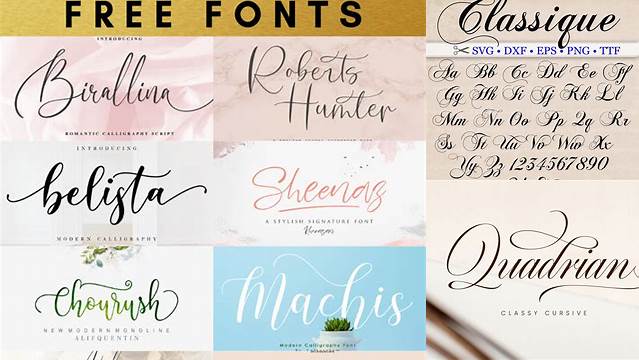
Explore Stunning Cursive Fonts For Elegant Writing
Hey guys! Ever admired the graceful loops and swirls of beautiful cursive writing fonts? They have a certain charm, right? It’s like the words are dancing across the page. Whether you're looking to add a touch of elegance to your wedding invitations, create a unique logo, or simply want to jazz up your personal notes, the right cursive font can make all the difference. In this article, we'll dive deep into the world of these fonts, exploring their history, styles, and how to choose the perfect one for your needs. Get ready to be inspired and maybe even discover your new favorite font!
The Allure of Cursive Fonts: Why We Love Them
Alright, let's be honest, beautiful cursive writing fonts have a special place in our hearts. They're more than just letters; they're an art form! Their appeal is multifaceted. First off, cursive fonts evoke a sense of sophistication and tradition. Think about those old-school love letters or elegant certificates – the flowing script instantly lends an air of prestige. It's like adding a touch of class to whatever you're creating. Secondly, cursive fonts are incredibly versatile. They can be used for everything from formal invitations and branding to personal journaling and artistic projects. This versatility makes them a go-to choice for designers, writers, and anyone who wants to make a statement. Furthermore, cursive fonts often have a personal touch. Each font has its own unique personality, with variations in slant, thickness, and flourishes. This individuality allows you to express your creativity and make your work stand out. There's a certain intimacy to cursive; it feels more personal, more handmade. You can almost feel the pen gliding across the page. This is particularly useful when you want to make a connection with your audience. Cursive fonts give a sense of authenticity that digital fonts often lack. The feeling of handwriting has the power to charm, adding personality and charm to a message. They're like a secret language that gives a human touch to any message. So, whether you're a creative professional or just someone who appreciates beautiful design, cursive fonts offer a world of possibilities.
A Brief History: From Ancient Scripts to Digital Designs
Let’s rewind the clock a bit, shall we? The history of beautiful cursive writing fonts is super interesting. It all started way back when. The earliest forms of cursive writing can be traced back to ancient civilizations, where scribes used quicker, more fluid strokes to write. The goal was to speed up the process of writing, which meant connecting the letters and creating a continuous flow. Over time, these scripts evolved, influenced by different cultures and artistic movements. The Romans, for example, developed a cursive script known as Roman cursive, which was used for everyday writing. This style was all about speed and efficiency, perfect for the busy lives of the Romans. During the Middle Ages, different styles of cursive emerged. The Carolingian minuscule was a significant development, as it provided a more standardized and legible form of writing. It paved the way for more elegant and artistic cursive styles. With the invention of the printing press, cursive fonts took a backseat for a while. But they never truly disappeared. The elegance of cursive meant that it remained the choice for formal documents, invitations, and artistic expression. The 18th and 19th centuries saw a resurgence of interest in elegant calligraphy. Copperplate script, with its delicate hairlines and bold strokes, became popular for its ornamental appeal. It's a timeless classic for formal things, such as wedding invitations and certificates. Today, the digital age has brought a new wave of cursive fonts. Designers have created countless variations, from classic scripts to modern interpretations. This means we have a wide range to choose from, offering something for everyone. So, next time you're admiring a beautiful cursive font, remember that it's part of a rich history of creativity and craftsmanship.
Types of Cursive Fonts: Exploring Different Styles
Okay, let’s break down the different types of beautiful cursive writing fonts. There's a whole world of styles out there, each with its own unique character. First up, we have Formal scripts. These fonts are all about elegance and sophistication. They often feature elaborate flourishes, and they're perfect for invitations, certificates, and anything that needs a touch of class. The fonts look as if they were made with calligraphy, and they really have a handmade feel. Then we have Casual scripts. These fonts are a bit more relaxed and friendly. They're less formal, with a more personal touch. Casual scripts work great for logos, personal branding, and informal notes. They often mimic handwriting, so they can make your message feel approachable and fun. Brush scripts are another cool category. These fonts mimic the look of a paintbrush or marker. They're bold, dynamic, and perfect for adding a touch of artistic flair. They're especially effective for titles, headlines, and any design that needs a burst of creativity. Modern scripts take a more contemporary approach. They often feature clean lines, geometric shapes, and a minimalist aesthetic. These fonts are perfect for modern designs and branding that demands a modern feel. Finally, there are Handwritten scripts, which are designed to look like actual handwriting. They can vary widely, from neat and tidy styles to more expressive and free-flowing ones. Handwritten scripts work great for personal projects, creating a sense of authenticity and warmth. Each type of cursive font brings a different vibe to the table. Knowing the differences will help you choose the best one for your specific project.
Choosing the Right Cursive Font: Key Considerations
Choosing the right beautiful cursive writing fonts can be tricky. But don’t worry, I got you! First, consider the overall tone of your project. Are you aiming for elegance and formality, or a more casual and friendly feel? The answer will guide you toward the most suitable style. Secondly, think about readability. Some cursive fonts are more challenging to read than others, especially in smaller sizes. Ensure your chosen font is easy to read, because the point is to communicate effectively. Another consideration is the context of use. For example, a formal script might be perfect for a wedding invitation, but it may feel out of place for a website's body text. Also, consider the length of the text. Elaborate scripts can be used in short bursts, but longer paragraphs can be hard to read. The perfect fonts are those with a balance of form and function. Experimenting with different fonts is super important. Try out a few options and see how they look in your layout. Testing the font in its context is essential. Check how it looks against the background and how it interacts with other design elements. Finally, consider licensing. Some fonts are free, while others require a license for commercial use. Be sure to check the license terms. Taking these considerations into account will help you make the right choice and make sure your project looks fantastic!
Readability Tips for Cursive Fonts
One of the most important things to consider when selecting a beautiful cursive writing font is readability. After all, what good is a beautiful font if nobody can read it? There are several things to keep in mind. First, choose fonts with a good balance of thickness and spacing. Letters that are too thin or too crowded will be difficult to read, especially at smaller sizes. Select fonts that are legible for the use you want it to be used for. Make sure to test the font in the size you intend to use it. Secondly, pay attention to the x-height of the font. The x-height refers to the height of the lowercase letter 'x'. Fonts with a larger x-height tend to be more readable. These fonts will allow the words to jump off the page. Consider the contrast between the font and the background. Make sure the font color has a good contrast with the background color. Black text on a white background is a safe bet, but make sure whatever you do is readable. Test the font at different sizes to ensure it remains readable. If you are unsure, you can try setting a sample text in the font and printing it out. This will allow you to evaluate it in a real-world setting. By taking these steps, you will select a readable and functional font.
Pairing Cursive Fonts with Other Fonts
Pairing beautiful cursive writing fonts with other fonts can be a fun challenge. It’s all about creating a harmonious look. First, think about contrast. Combining a cursive font with a sans-serif font can create a nice balance. A sans-serif font is usually used in the headings, with the cursive font used for body text. Secondly, consider the personality of the fonts. A formal cursive font might pair well with a clean and modern sans-serif, while a more casual cursive might work with a slightly more playful sans-serif. Choosing fonts of the same family, but in different styles, can work well. They will have similar letterforms and styles. Try a bold weight for the heading and a light weight for the body text. You will be creating a sense of visual unity. Test the pairing. Setting your text in the different fonts allows you to see what works and what doesn’t. Consider the context. Be mindful of where you will be using the fonts. The pairing that works well for a website may not be right for a printed document. Practice, experimentation, and a good eye will get you there.
Free vs. Paid Cursive Fonts: What's the Difference?
When you're on the hunt for beautiful cursive writing fonts, you'll come across two main categories: free and paid fonts. Understanding the difference can help you make the best choice for your needs. Free fonts are usually available for personal use, and some can be used commercially, but they usually have certain limitations. Paid fonts often come with more features and greater flexibility. They typically have extensive character sets, including a wider range of glyphs, ligatures, and alternative characters. Paid fonts are often designed by professional typographers and are of a higher quality. They may come with more variations, like different weights and styles, making them more versatile. The main advantage of free fonts is the cost. They are a great way to get started without spending money. However, you should be mindful of the licensing terms. You will also have to check the license terms. Some free fonts may require attribution, while others may have limitations on commercial use. Paid fonts offer several benefits, including more extensive features, high quality, and greater flexibility. They provide better value for money, especially for commercial projects. Consider your specific needs. If you need a font for a professional project or a long-term project, a paid font is likely the better option. However, if you are experimenting, free fonts are still a great starting point. Always double-check the license terms, whether it's free or paid. It is very important. It will prevent you from running into legal troubles.
Websites and Resources for Finding Cursive Fonts
Now that you know all about beautiful cursive writing fonts, where do you find them? Luckily, there are plenty of websites and resources dedicated to fonts. Google Fonts is one of the most popular resources for free fonts. It offers a vast selection of fonts, including many elegant cursive styles. The fonts are open-source, so they can be used for personal and commercial projects. Another great option is Font Squirrel. It also offers a wide range of free fonts, and it's known for its high-quality selection. Their library is hand-picked, ensuring a good selection. Then there’s DaFont. This site has a wide variety of fonts, including numerous cursive options. You should be cautious because it's a community-driven site, so make sure to check the license terms. For paid fonts, consider MyFonts. This is a huge marketplace that features fonts from many different designers. It's a great place to find high-quality options, including an abundance of cursive fonts. Another option is Creative Market. This site has a large selection of fonts and other design assets, with both free and paid options. Be sure to compare prices and read the license terms carefully before making a purchase. Remember to always check the license terms before downloading and using any font. This will make sure you are using the font in compliance with its usage guidelines.
Conclusion: Embracing the Elegance of Cursive Fonts
Alright, guys, we've covered a lot of ground today! We've journeyed through the history, styles, and practical applications of beautiful cursive writing fonts. I hope you're as inspired as I am by the elegance and versatility of these fonts. Whether you're a seasoned designer, a budding artist, or just someone who loves beautiful typography, I encourage you to experiment with cursive fonts. Embrace their charm, play with different styles, and discover how they can elevate your creative projects. So, go forth and create, my friends! And remember, the perfect cursive font is out there, waiting to bring a touch of magic to your work. Happy designing!